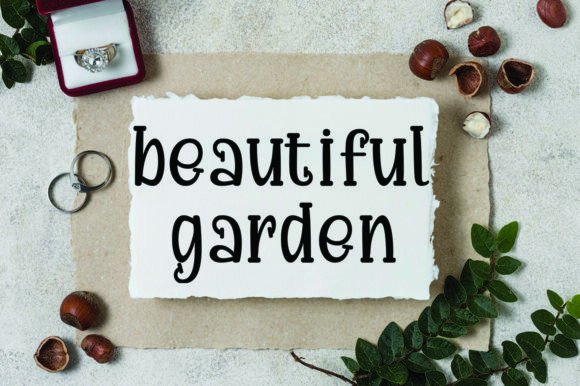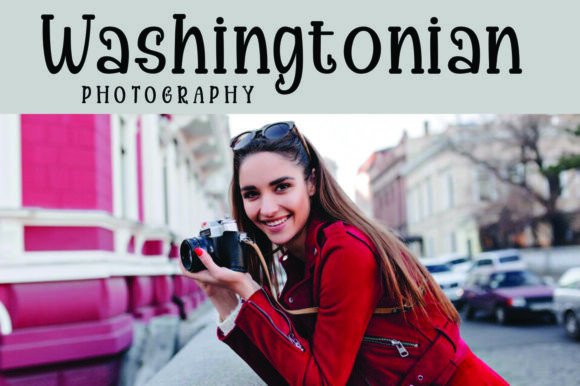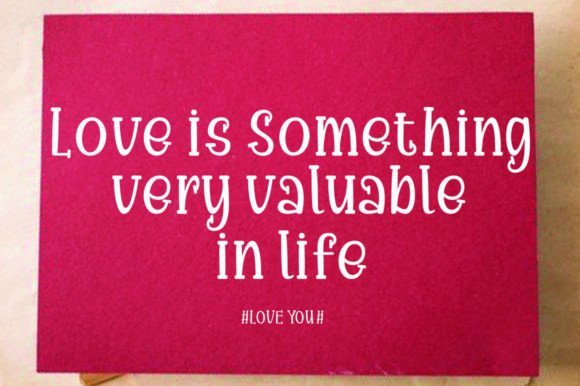
Introduction to Ratika Graceful Font
As a designer, there’s nothing quite like the rush of creating something beautiful and unique. You’re brainstorming ideas for your next project, and suddenly, a spark of inspiration hits – you need a font that’s both playful and sophisticated. This is where the Ratika Graceful Font comes in, a versatile and charming mixed-case font that’s perfect for adding a touch of whimsy to your designs.
With its smooth, cute, and fun aesthetic, Ratika Graceful Font is a valuable resource for designers looking to elevate their creative projects. Whether you’re working on a logo, a branding campaign, or a social media graphic, this font is sure to add a high-quality touch to your work. Plus, with a transparent background, you can easily overlay it on any image or design element, giving you endless combination possibilities.
Key Features of Ratika Graceful Font
- High-quality design resource suitable for various creative projects, including logos, branding, and typography.
- Comes with a transparent background, making it easy to customize and integrate into any design.
- Features a unique, elegant design with subtle flair, perfect for adding a touch of sophistication to any project.
Honest Review: Ratika Graceful Font
I recently stumbled upon the Ratika Graceful Font while searching for a high-quality design resource for a creative project. As a designer, I was excited to dive in and see what it had to offer. After some experimentation, I’m happy to share my honest thoughts.
What works well: ✨ The font is incredibly elegant and sophisticated, making it perfect for projects that require a touch of sophistication. The transparent background feature is also a huge plus, allowing for seamless integration with any design.
However, I did encounter a few limitations: ⚠️ The font is only available in a few weights, which may not be suitable for projects that require a wide range of typography options.
Overall, I’m impressed with the Ratika Graceful Font. It’s a great addition to any designer’s toolkit, and its free download makes it an excellent resource for creative projects on a budget. While it may have some limitations, its elegance and sophistication make it a worthwhile choice for designers seeking a high-quality design resource.
The Ratika Graceful Font is ideal for use in creative projects, such as wedding invitations, birthday cards, and other special occasion designs. Its elegant and sophisticated design makes it perfect for adding a touch of class to your designs.